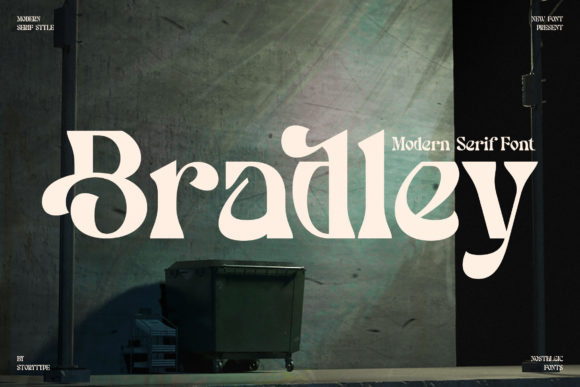
**Introducing Bradley Font: The Quintessential Serif Typeface for Unparalleled Elegance and Luxury**
In a world saturated with digital noise, your brand's visual identity holds immense power in capturing attention and leaving a lasting impression. Amidst the sea of contemporary fonts, Bradley Font emerges as a beacon of timeless elegance, a classic serif typeface that exudes sophistication and luxury. Designed by the renowned Storytype Studio, Bradley Font is not merely a font; it's an artistic masterpiece, meticulously crafted to elevate your creative projects to new heights of refinement.
**Bradley Font: A Legacy of Excellence**
Bradley Font draws inspiration from the rich history of serif typefaces, embodying the essence of timeless beauty and enduring appeal. Its bold strokes and graceful curves evoke a sense of nostalgia and heritage, while its contemporary twist ensures it remains relevant and impactful in the modern digital landscape. With Bradley Font as your chosen typeface, your designs will radiate an aura of sophistication and luxury, effortlessly capturing the attention of your target audience.
**Bradley Font: The Perfect Choice for Creative Visionaries**
Whether you're a graphic designer, a branding expert, or a creative enthusiast, Bradley Font is your ultimate tool for crafting visually stunning designs. Its versatility knows no bounds, seamlessly adapting to a wide range of creative projects:
- **Elegant Logos and Branding:** Bradley Font's inherent elegance and luxury make it the ideal choice for crafting logos and branding elements that exude professionalism and sophistication.
- **Mesmerizing Book and Movie Titles:** Transport your readers or viewers into a world of enchantment with Bradley Font's captivating presence. Its bold strokes and graceful curves will add an air of intrigue and sophistication to your book or movie titles.
- **Fashion Forward Brand Identity:** In the competitive world of fashion, Bradley Font stands out as the perfect choice for creating brand identities that radiate elegance and luxury. Its timeless appeal will elevate your fashion brand, making it stand out from the crowd.
- **Mesmerizing Magazine and Editorial Design:** Bradley Font's ability to command attention makes it the perfect choice for magazine and editorial design. Its bold strokes and graceful curves will captivate readers, ensuring your content receives the attention it deserves.
**Bradley Font: Your Gateway to Creative Excellence**
With Bradley Font at your disposal, the possibilities are endless. Its versatility and timeless appeal will empower you to create designs that resonate with your audience, leaving an unforgettable impression. Its PUA encoding ensures effortless access to all glyphs and swashes, making intricate and visually stunning designs a breeze.
**Bradley Font: Experience the Epitome of Elegance and Luxury**
Bradley Font is more than just a typeface; it's an investment in your creative vision. Its ability to transform ordinary designs into masterpieces of sophistication and elegance is unparalleled. Embrace the power of Bradley Font today and embark on a journey of creative excellence that will leave your audience spellbound.